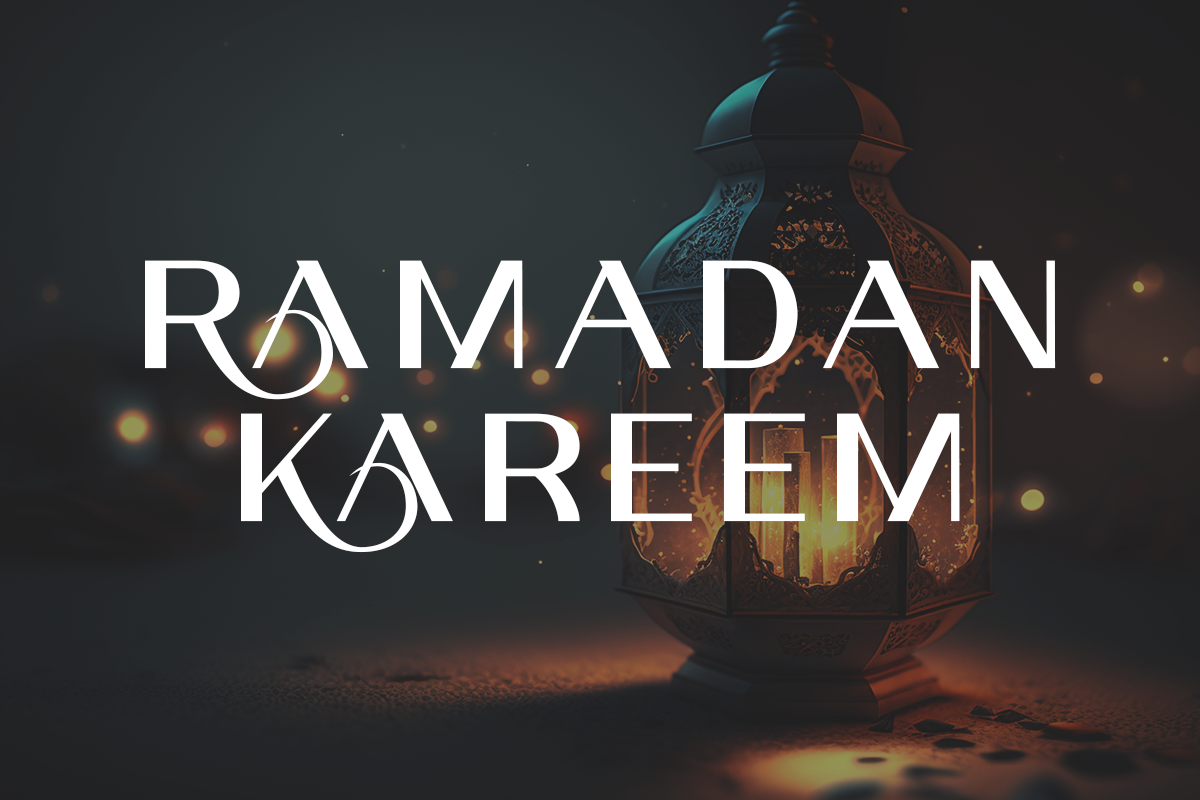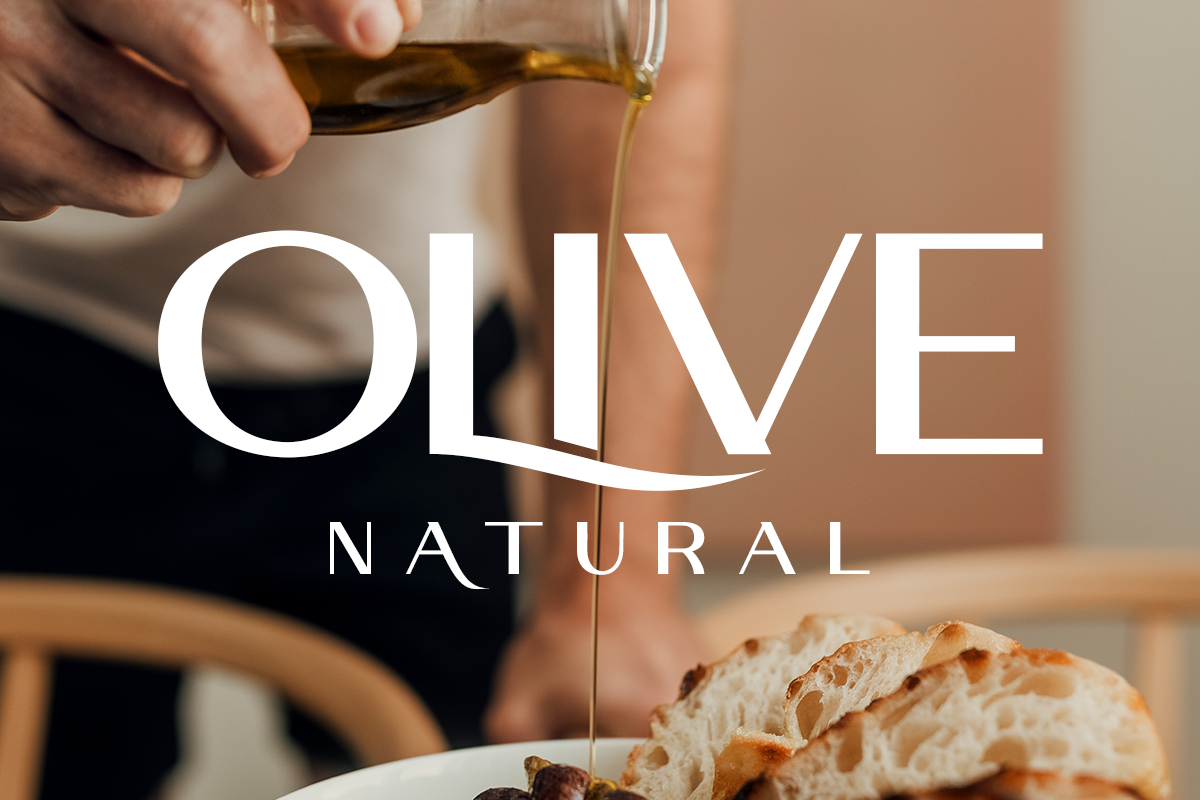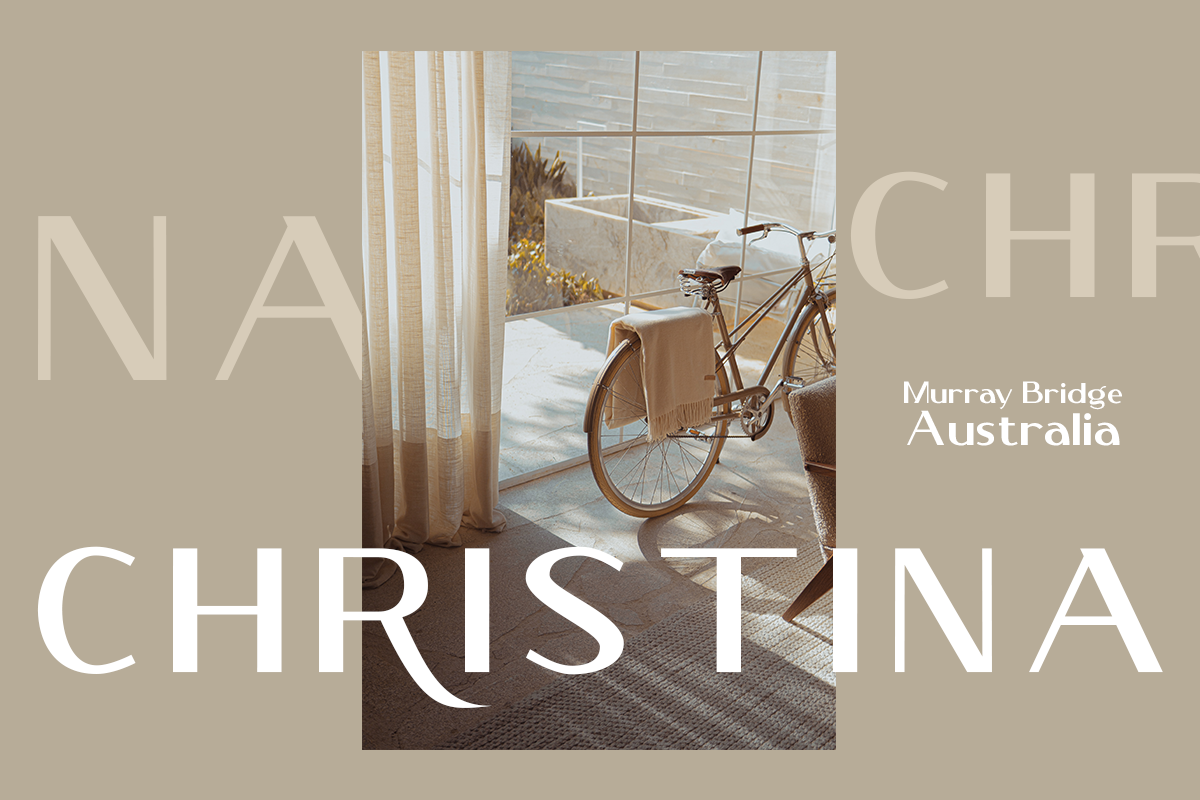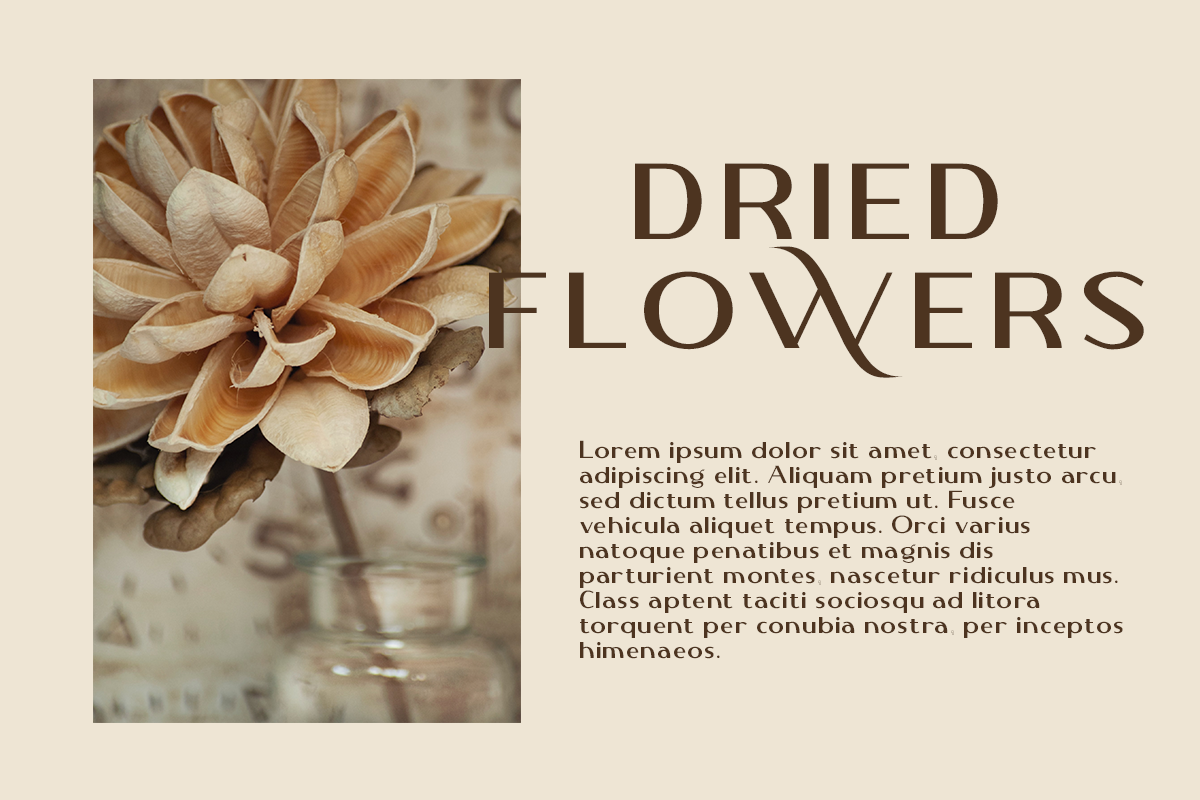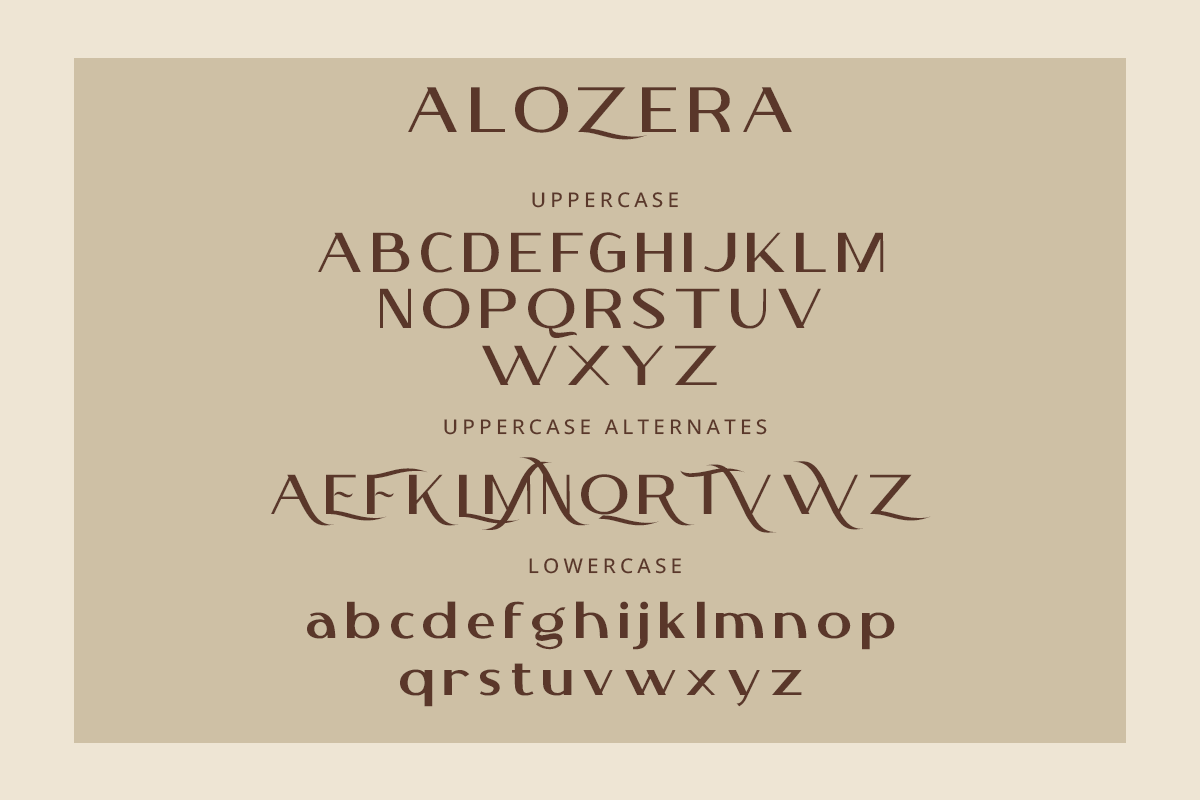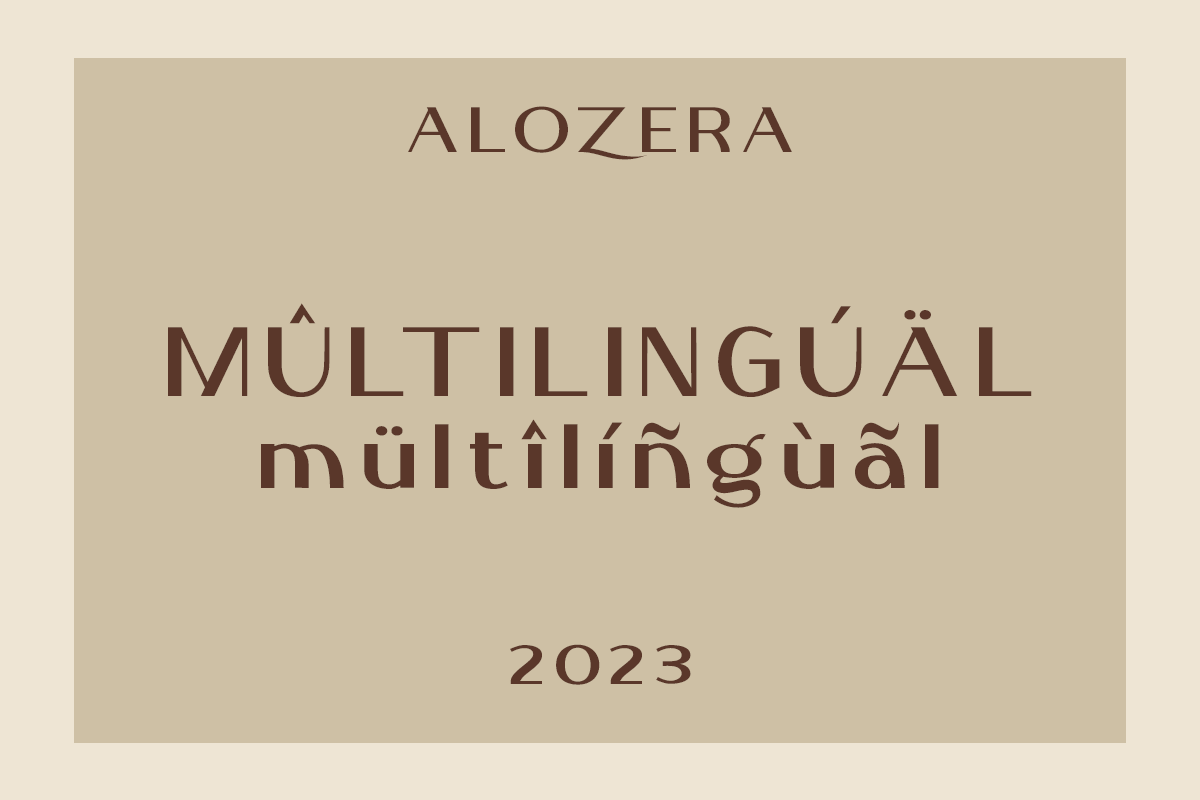
Alozera Modern Sans Serif Font Many different types of sans serif fonts are available for all of us. Alozera Modern Sans Serif Font is one of the fonts with a modern, unique, and elegant look. This impression is what makes this font different from other serif fonts. Alozera Modern Sans Serif Font have letter forms like other fonts that are firm but have long curved serifs. This font can be distinguished between letters easily. It can read clearly from a distance or near. The font is legible. Alozera Modern Sans Serif Font can use as digital and print fonts. The character of this font makes it one of the best fonts that have high compatibility when used for wedding invitations, branding, fashion, book titles, business cards, posters, and many others. The function must pay attention to the font size and theme. The elegant impression of Alozera Modern Sans Serif Font will make the product completed with the font have a high aesthetic value. It will look modern and attractive. With the presence of this font, it is hoped that it can increase your choices for serif font lovers in choosing the appropriate font for the object you are going to mix. Our collection of serif fonts is compatible for use as; Figma fonts, Canva fonts, Freepik Fonts, and Adobe Fonts. They also work as Windows Fonts and Apple Fonts. For your social media needs, you can use and install fonts in our collection of serif fonts to use as Instagram Fonts, Facebook Fonts, and Twitter Fonts.